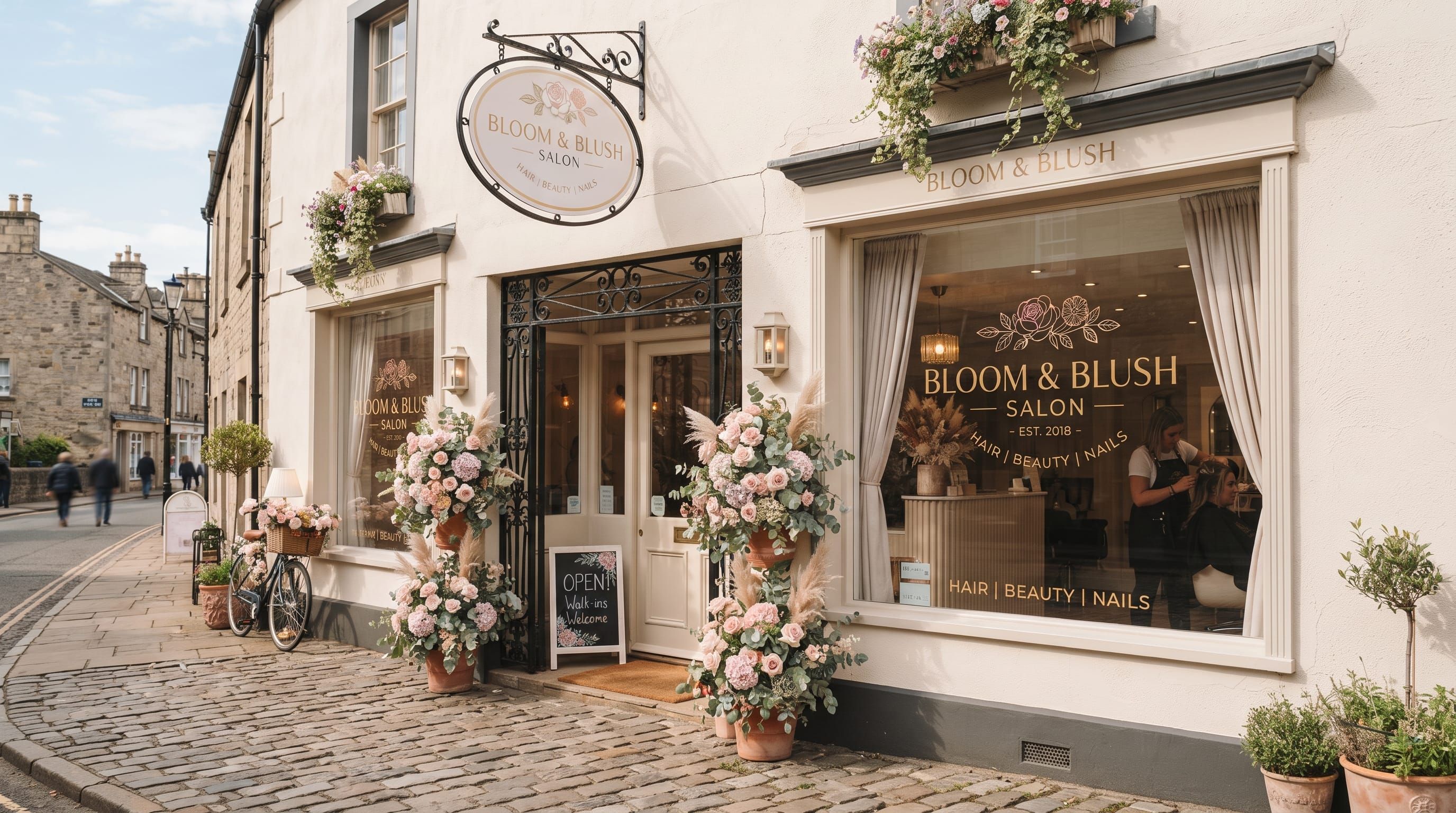
How to Create Salon Logo Design That Attracts More Clients
A strong salon logo design can shape how potential clients perceive your beauty business before they ever book an appointment. Your logo appears on storefront signs, social media profiles, websites, appointment cards, product packaging, uniforms, and promotional materials. When it looks polished and matches the experience your salon provides, it can help communicate professionalism, style, trust, and personality.
A logo alone cannot guarantee more bookings. Service quality, customer experience, pricing, location, reviews, and marketing all matter. However, a professional visual identity can make a salon easier to recognize and more appealing to the type of client you want to attract.
The most effective salon logos are not simply beautiful.
They are strategic.
They reflect the salon’s positioning, remain readable at different sizes, and work consistently wherever customers encounter the brand.
This guide explains how to build a salon logo design that supports stronger branding and creates a professional first impression.
Start Your Salon Logo Design With Brand Positioning
Before choosing fonts or drawing symbols, define what kind of salon you are building.
Two salons may offer similar services but need completely different identities.
For example:
Luxury Hair Salon
Could feel:
• Elegant
• Exclusive
• Refined
• Fashion-forward
Friendly Neighborhood Salon
Could feel:
• Warm
• Approachable
• Relaxed
• Personal
Modern Beauty Studio
Could feel:
• Minimal
• Clean
• Contemporary
• Confident
Creative Hair Studio
Could feel:
• Bold
• Artistic
• Expressive
• Youthful
Your salon logo design should immediately support this positioning.
A luxurious serif wordmark may work beautifully for a premium studio but feel too formal for a playful children’s salon.
Understand the Clients You Want to Attract
Good branding begins with the audience.
Ask:
• Who is your ideal client?
• What services are they looking for?
• What price level do they expect?
• What visual style appeals to them?
• What makes them choose one salon over another?
A salon specializing in bridal styling may need a different visual identity from one focused on:
• Creative hair color
• Men’s grooming
• Nails
• Lashes
• Luxury treatments
Avoid choosing a logo only because you personally like it.
The identity should connect with the customers the business wants to serve.
Research Competing Salon Logos
Before designing, look at salons operating in your market.
Study:
• Logo styles
• Colors
• Fonts
• Symbols
• Photography
• Overall branding
Look for patterns.
Perhaps many competitors use:
• Pink
• Script fonts
• Scissors icons
This does not mean those elements are wrong.
However, using exactly the same combination can make your salon harder to distinguish.
Competitor research helps you find opportunities to look different while still feeling appropriate for the beauty industry.
Choose the Right Salon Logo Style
There is no single correct type of salon logo design.
Choose a format that fits the brand.
Wordmark Salon Logo Design
A wordmark uses the salon name as the main visual element.
This works particularly well when the business name is:
• Short
• Memorable
• Distinctive
Typography becomes extremely important.
A well-designed wordmark can feel more sophisticated than a complicated symbol.
Wordmarks are especially suitable for:
• Luxury salons
• Modern studios
• Boutique beauty businesses
Monogram Salon Logo
A monogram uses one or more initials.
For example:
LS for Luna Salon.
Monograms can create an elegant and compact identity.
They work well on:
• Social avatars
• Product labels
• Towels
• Uniforms
• Appointment cards
Combine the monogram with the full salon name when more clarity is needed.
Symbol-Based Salon Logo
Some salons use a recognizable icon beside the business name.
Possible symbols include:
• Hair
• Leaves
• Flowers
• Mirrors
• Combs
• Scissors
• Abstract faces
The symbol should support the brand rather than simply describe the industry.
A salon does not automatically need scissors in its logo.
More abstract shapes can create a distinctive identity.
Combination Logo
A combination mark uses:
Symbol + Salon Name
This can provide flexibility.
The full version works on:
• Websites
• Signage
The icon can work alone on:
• Social profiles
• Product stickers
• Small applications
A flexible identity system is especially valuable as the salon grows.